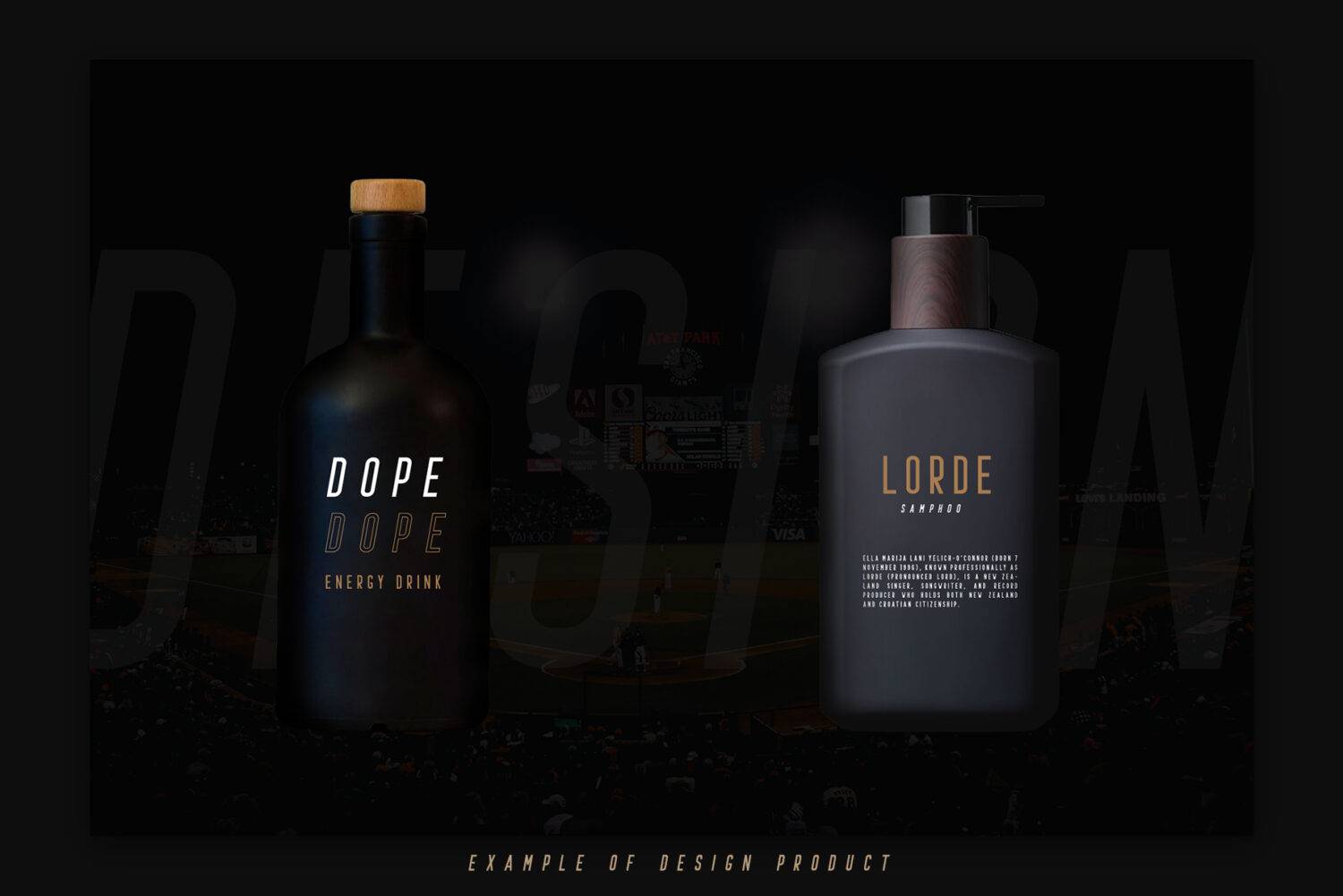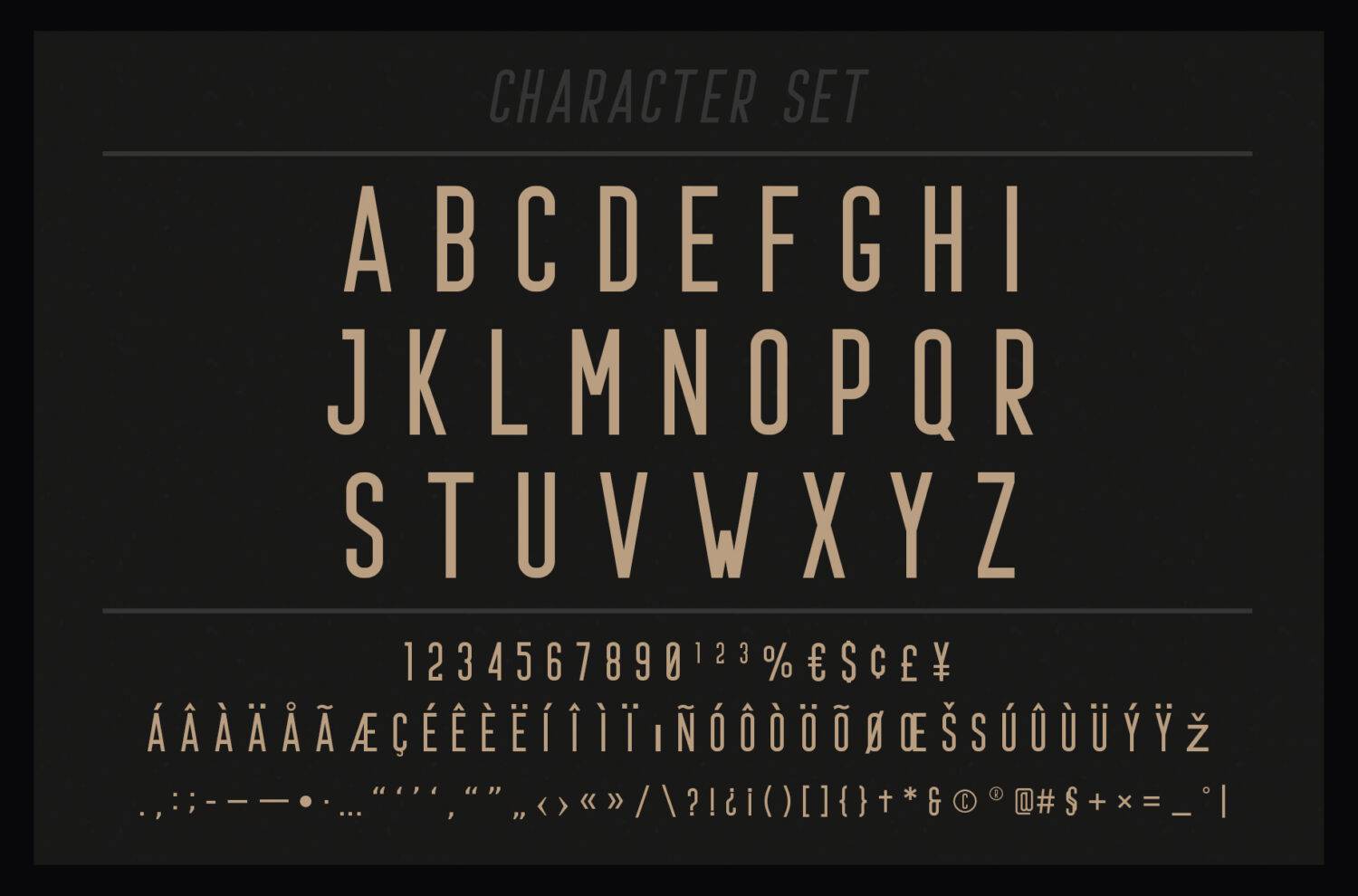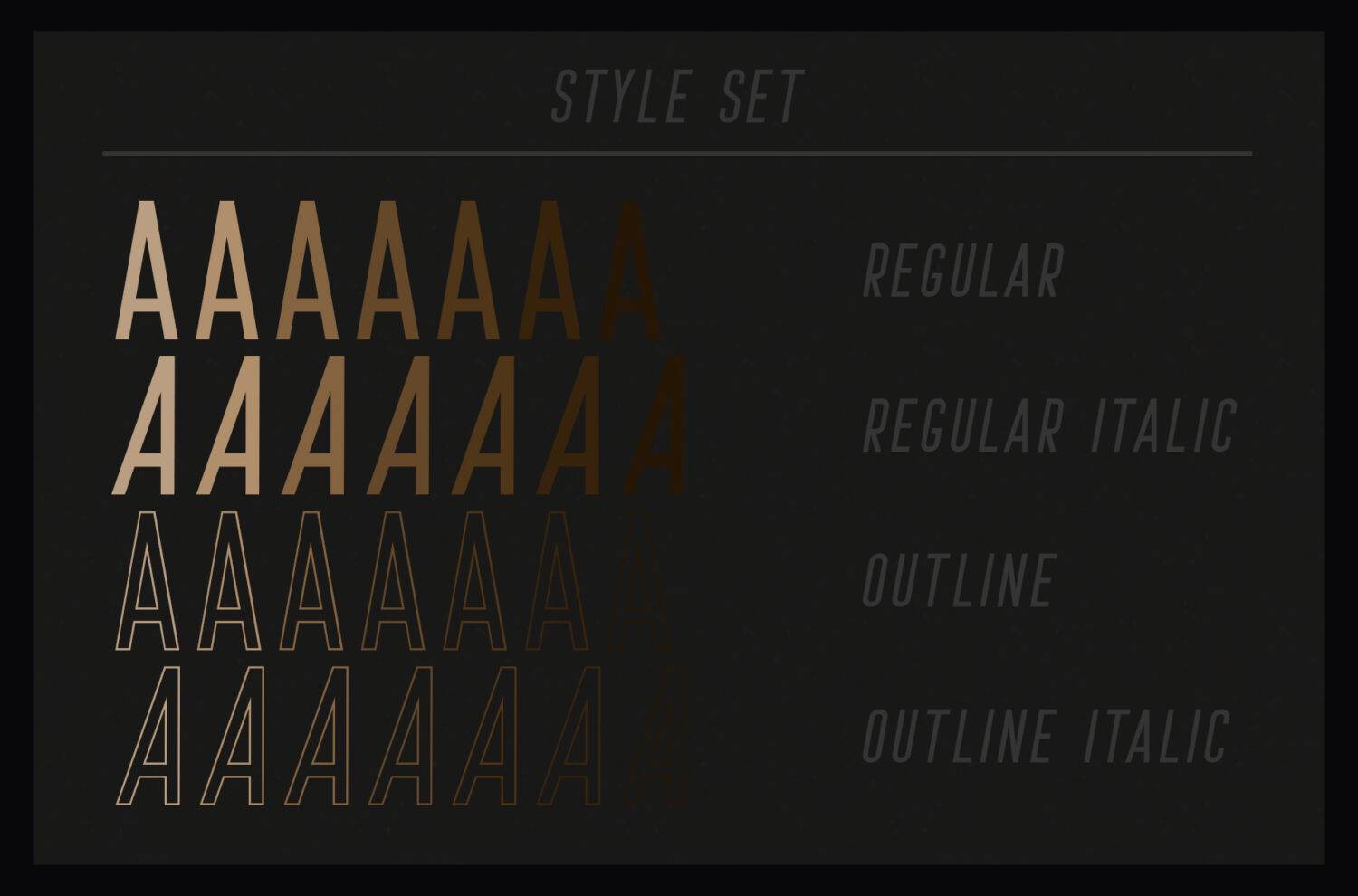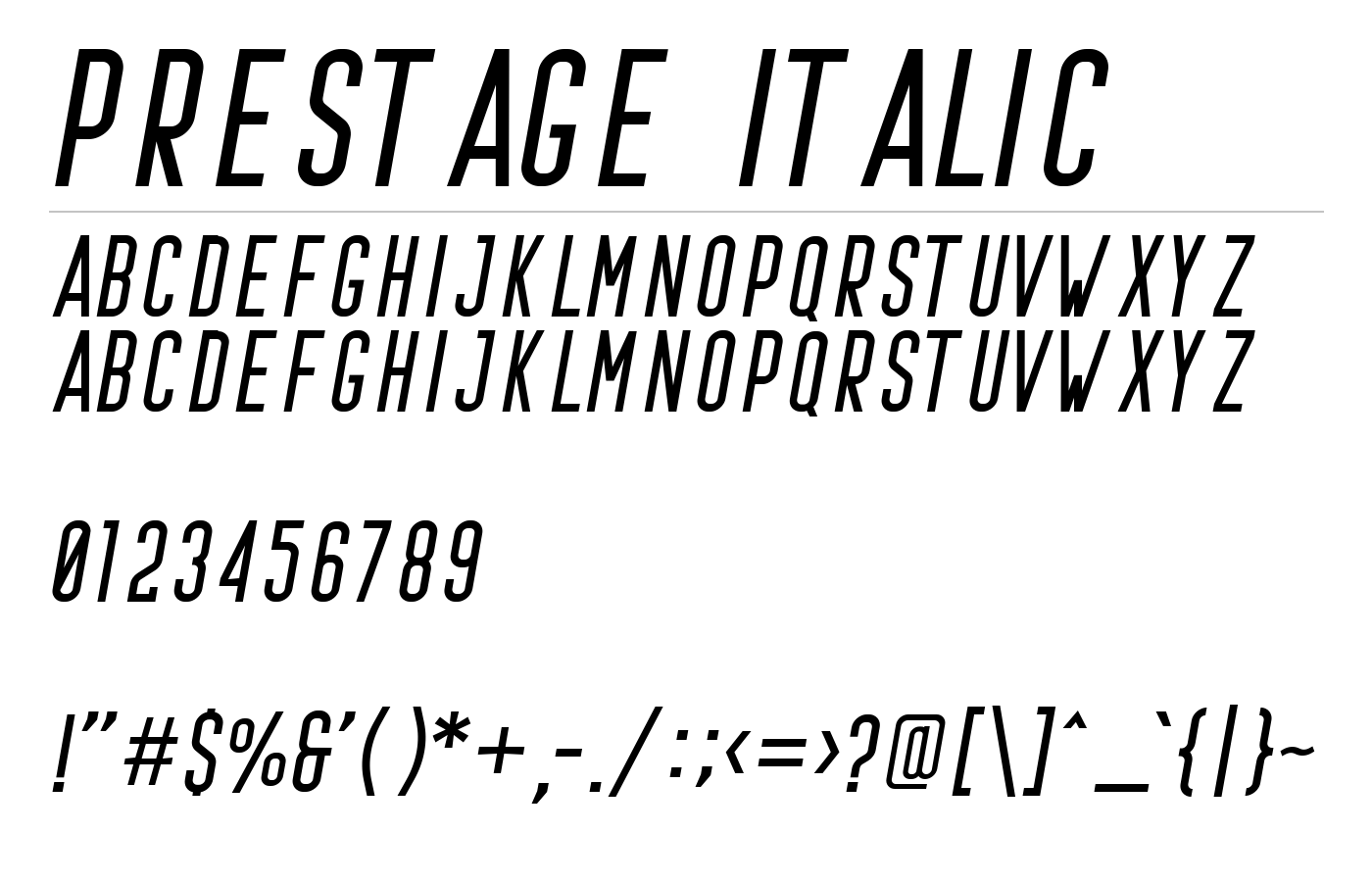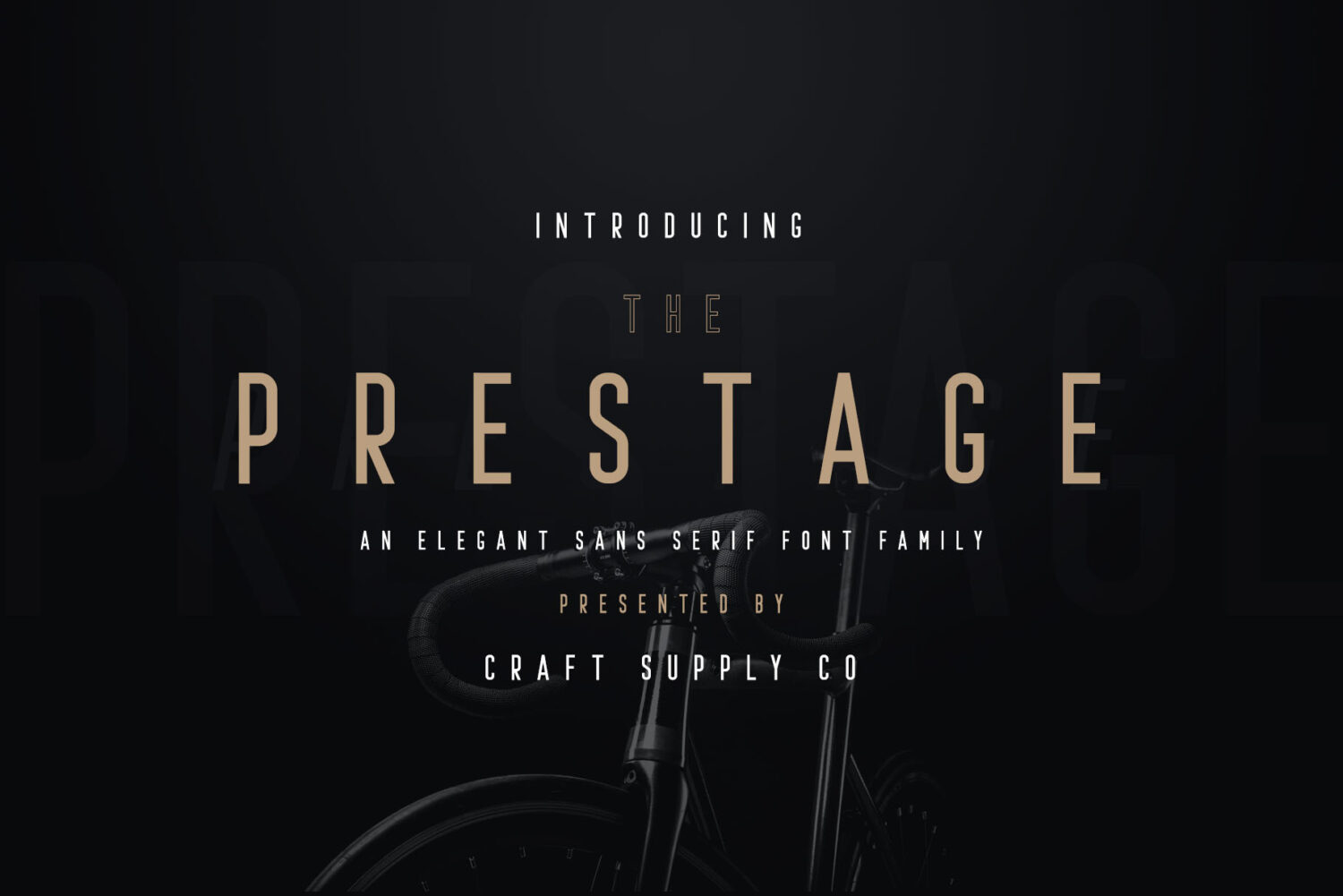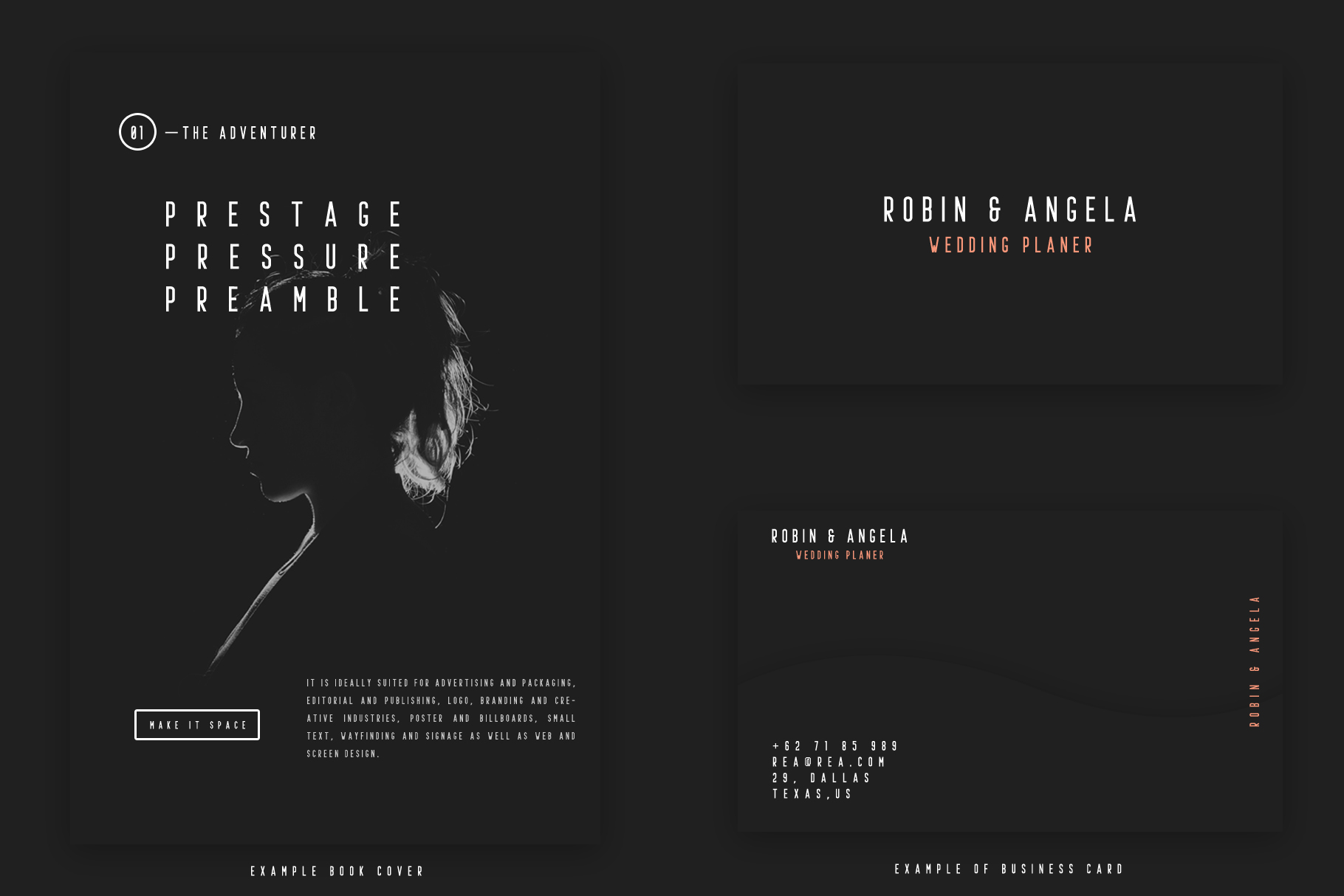
Prestage is a sleek, condensed sans serif font with an italic slant that conveys a modern and dynamic feel. Its narrow letterforms and uniform stroke weight create a clean, stylish appearance ideal for bold headlines, branding, and editorial design where a sharp, confident tone is desired. This font works well in contexts that require elegance with a sense of speed and sophistication.
Prestage
About Prestage
| Font family | Prestage |